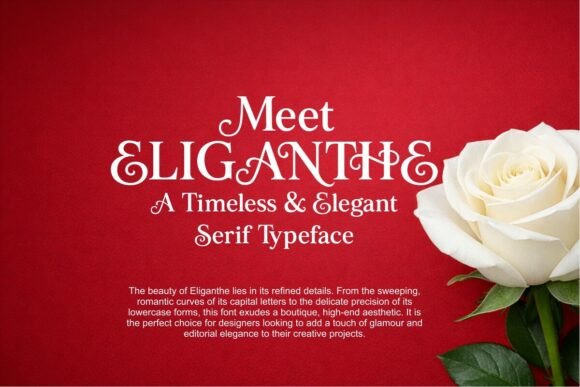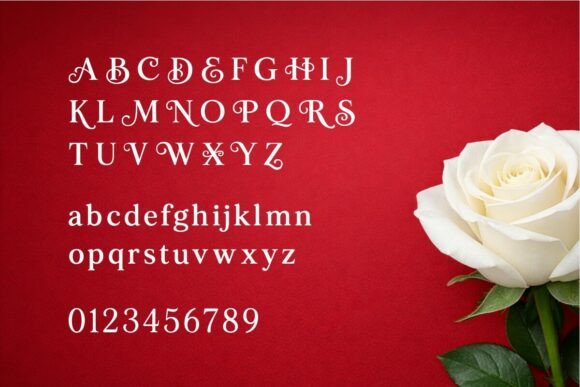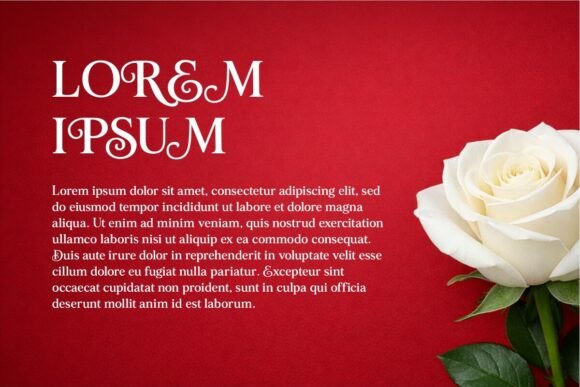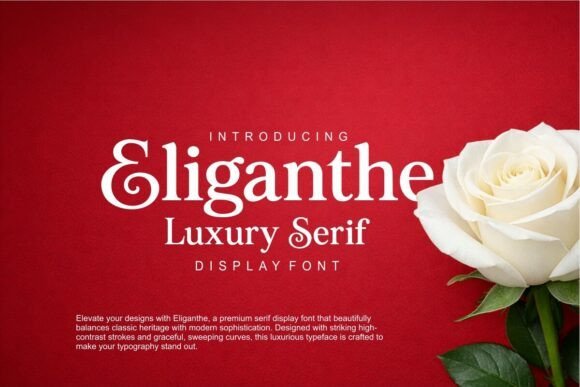
Introduction to Eliganthe Font
Elevate your designs with Eliganthe, a premium serif display font that beautifully balances classic heritage with modern sophistication.
Designed with striking high-contrast strokes and graceful, sweeping curves, this luxurious typeface is crafted to make your typography stand out The beauty of Eliganthe lies in its refined details.
Eliganthe Font offers exceptional quality and versatility, making it a valuable addition to your design toolkit. Whether you’re creating for personal projects or commercial use, Eliganthe Font delivers professional results.